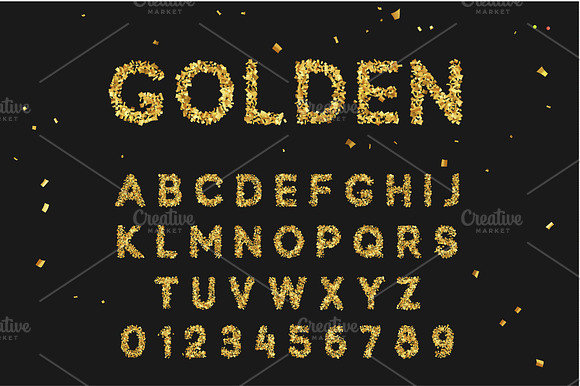
Font alphabet from gold confetti, letter golden serpentine.
Font alphabet from gold confetti, letter golden serpentine. Vector isolated on black background
Font alphabet from gold confetti, letter golden serpentine. by Modern vector fits naturally into Branding, posters, packaging, typography.